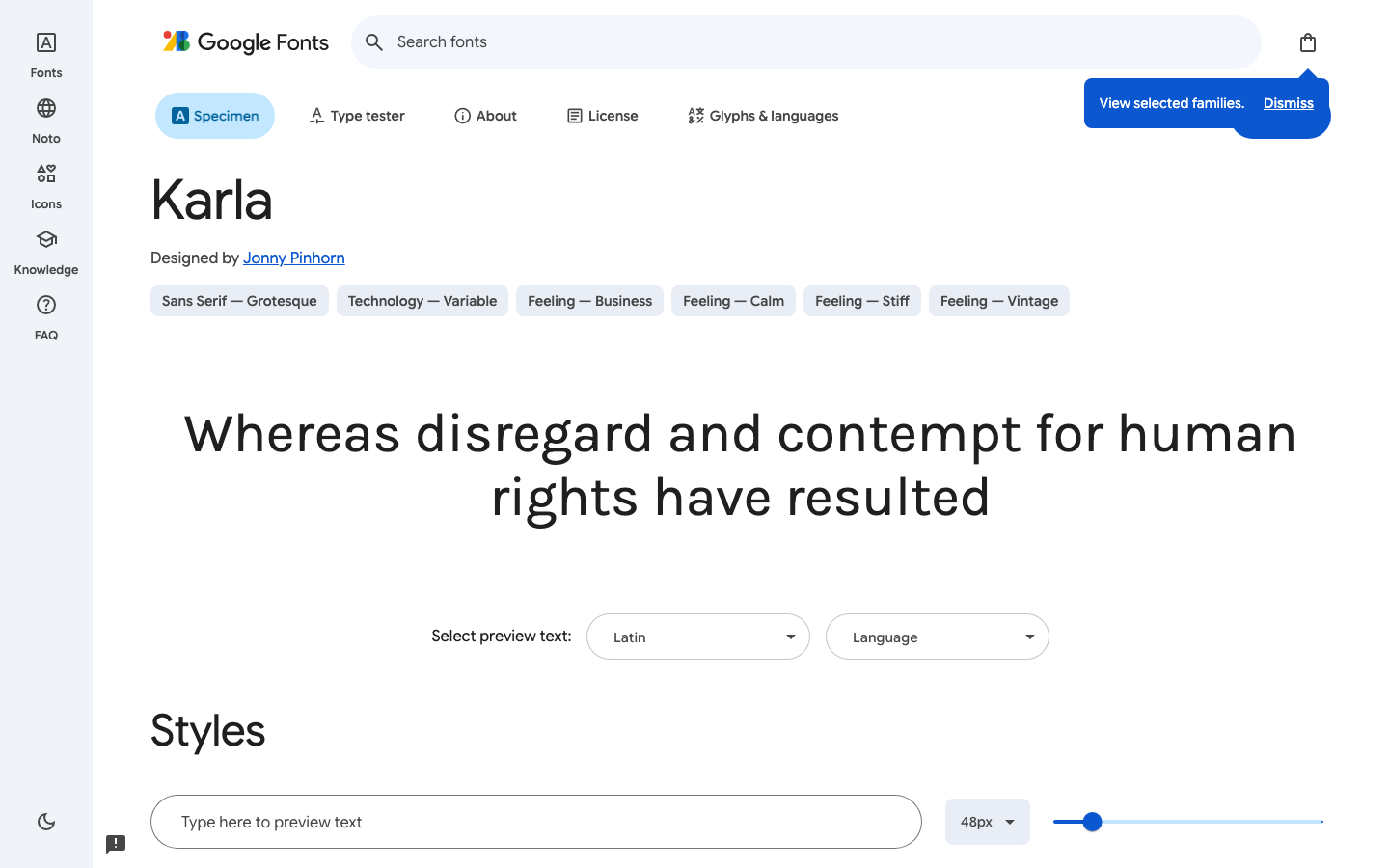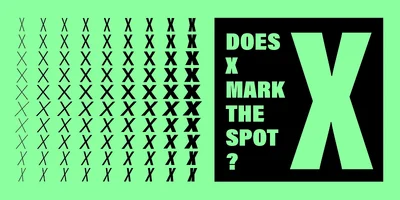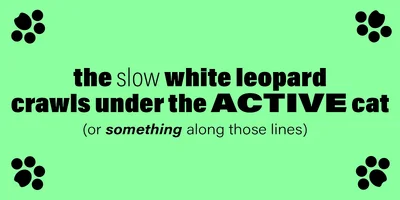
Acumin Pro vs Karla
Acumin Pro and Karla are both sans-serif typefaces sharing a neo-grotesque foundation. Where Acumin Pro leans minimal, Karla brings warm. Compare which suits your Editorial project.
Acumin Pro
Neo-Grotesque
ModernMinimal
Karla
Neo-Grotesque
ModernWarm
Acumin Pro
Karla
| Feature | Acumin Pro | Karla |
| Variable Font | No | Yes |
| Weights | Multiple | Variable |
| Source | Adobe | Jonathan Pinhorn |
Recommended: Acumin Pro
- minimal design character
- Suited for Corporate
- From adobe
Consider: Karla
- warm design character
- Suited for Branding
- From jonathan-pinhorn
- Available as a variable font